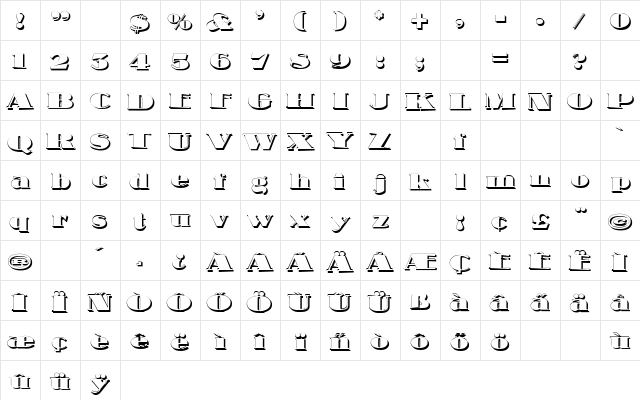
Nubian Shadow Regular
Design Context for Nubian Shadow Typeface
Nubian Shadow is built around its visual character rather than neutral utility — its distinctive forms are designed to make an impression at display sizes.
Font Pairing: Pair with a clean neutral sans-serif for body copy to let Nubian Shadow's character lead without overwhelming the composition.
Pro Tip: Treat Nubian Shadow as the centrepiece of your typographic hierarchy. One strong heading set in a decorative face can carry an entire layout.